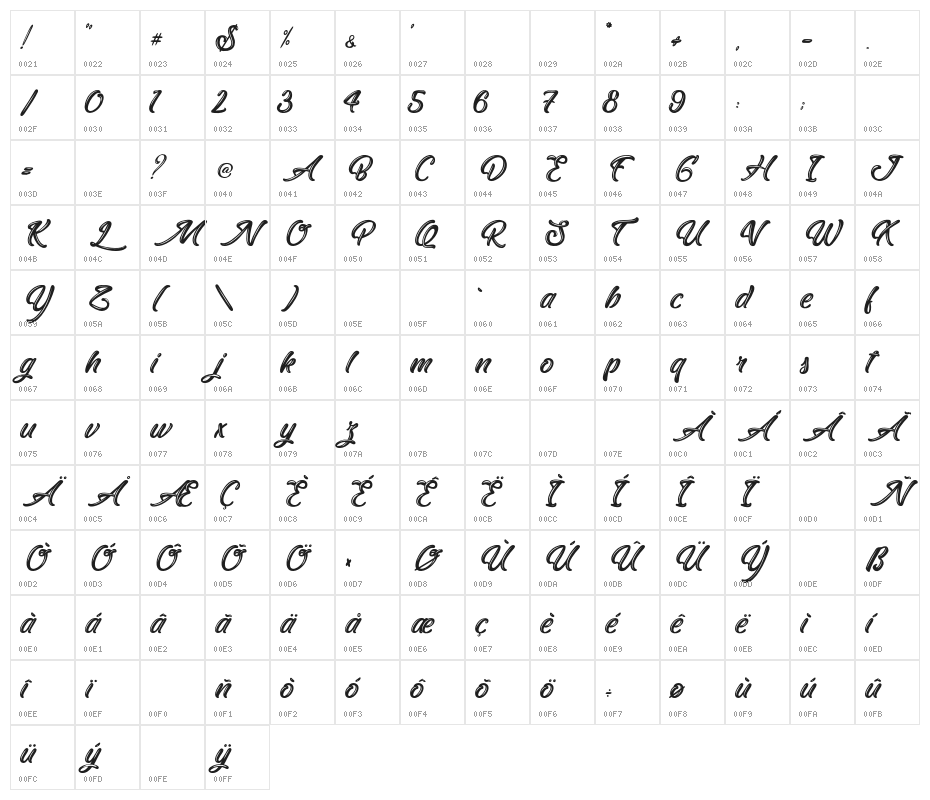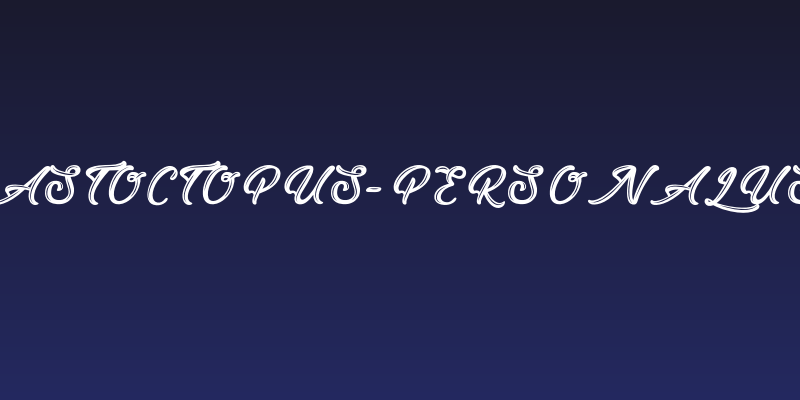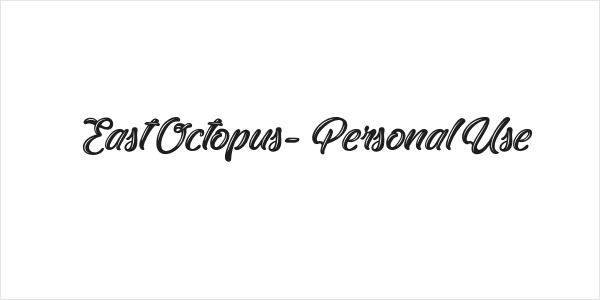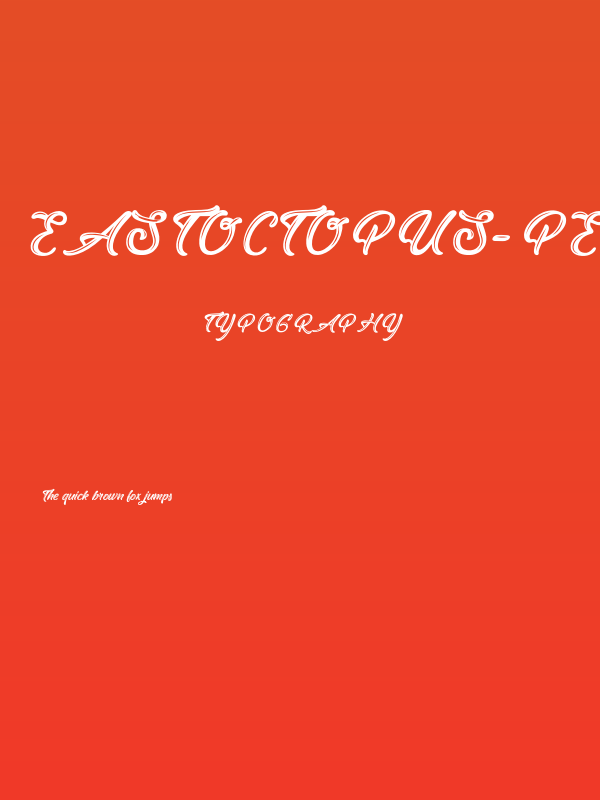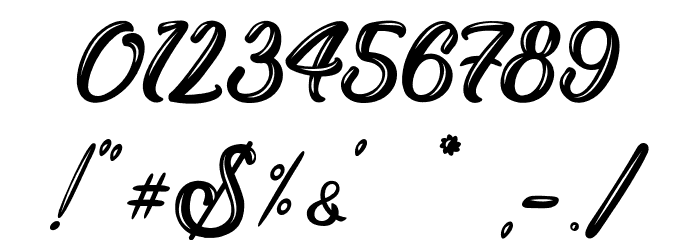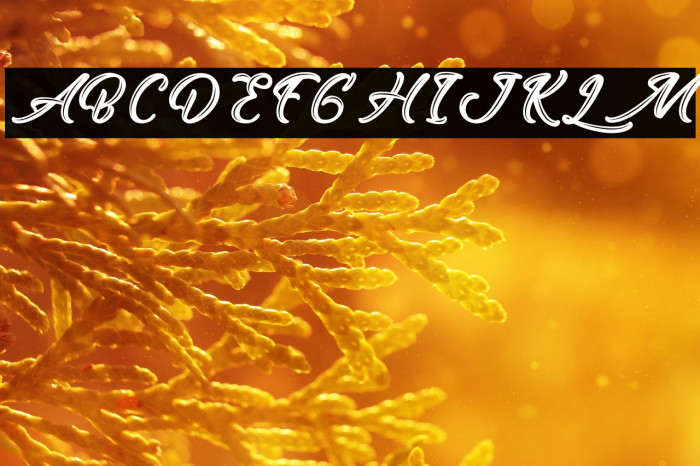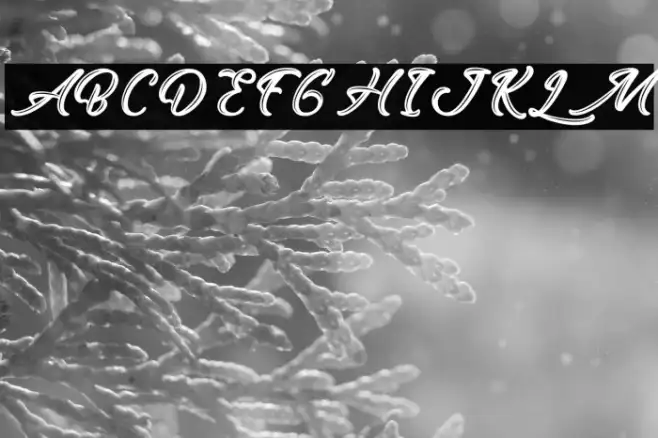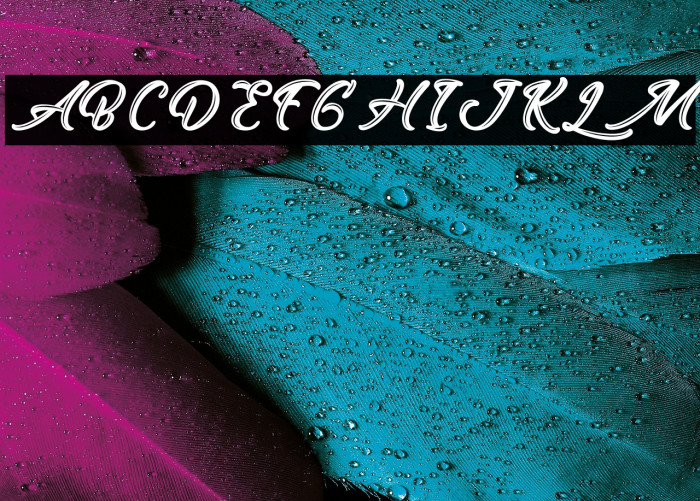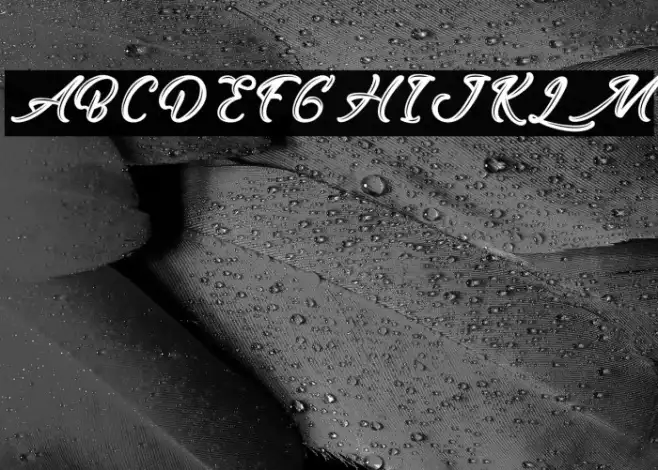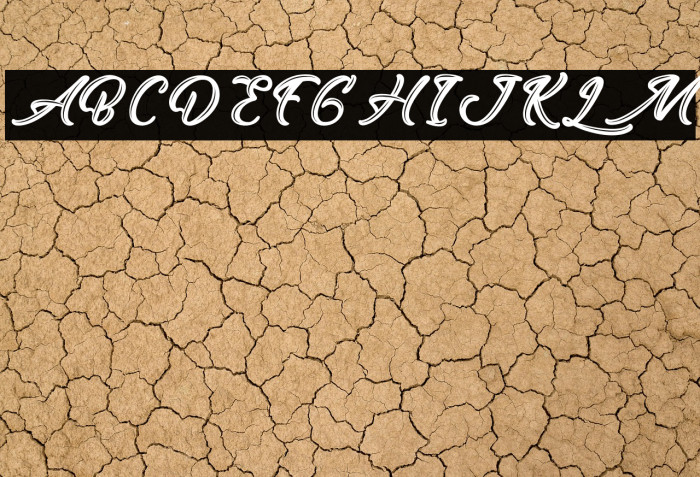
EastOctopus-PersonalUse Font
EastOctopus-PersonalUse Description
This font features a bold and dynamic script style with a flowing, cursive design. The characters are interconnected, creating a sense of movement and elegance. The uppercase letters are slightly more ornate, with flourishes that add a touch of sophistication. The lowercase letters maintain a consistent style, with smooth curves and loops. The numbers are equally stylized, matching the overall aesthetic of the font. Special characters are included, maintaining the same decorative flair. This font is ideal for projects that require a personal, artistic touch.